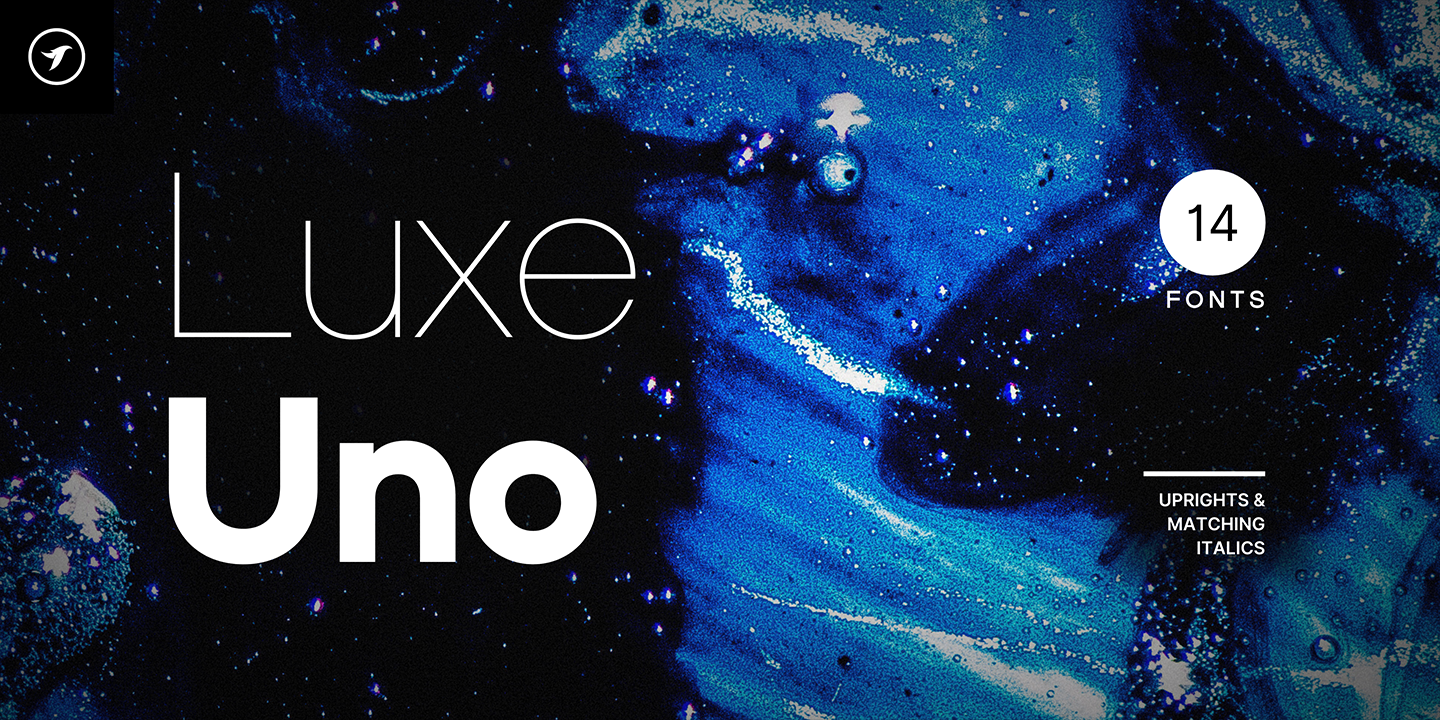
The Luxe Uno Font is exceptionally designed for numerous high-end applications including luxury brand logos, premium fashion campaigns, exclusive jewelry advertisements, upscale hospitality branding, high-end real estate marketing, luxury automotive promotions, elite spa communications, exclusive club signage, premium wine labels, and sophisticated lifestyle magazine layouts. Its distinguished character makes it particularly effective for luxury brands, premium service providers, exclusive retailers, and elite lifestyle companies seeking to convey ultimate sophistication, exclusivity, and uncompromising quality in their visual communications and brand presentations.
What makes the Luxe Uno Font incredibly exciting is its perfect embodiment of luxury design principles combined with contemporary typographic excellence. This distinguished typeface captures the essence of premium craftsmanship and exclusive sophistication while incorporating modern design elements that ensure optimal performance across today's luxury market landscape. The font's captivating character emerges from its refined letterforms, elegant proportions, and meticulously crafted details that evoke a sense of ultimate luxury and prestigious exclusivity, making it perfect for brands seeking to establish dominance in the high-end market and appeal to affluent, discerning clientele.
The Luxe Uno Font family offers a comprehensive collection of weights and styles designed to provide complete luxury branding solutions. The collection typically includes thin, light, regular, medium, bold, and black weights, with many versions featuring sophisticated italic variants that enhance the font's premium appeal and exclusive character. Some editions may include decorative alternates, luxury ligatures, and ornamental elements that provide additional design options for creating unique typographic treatments and ultra-premium brand applications.
Luxury brand designers and premium marketing professionals consistently select the Luxe Uno Font Free Download for its exceptional elegance and exclusive appeal. The font features meticulously crafted spacing and kerning that ensures perfect harmony and optimal readability across various luxury applications, from delicate product tags to grand retail displays. Its refined construction maintains sophistication and prestige in both intimate and large-scale uses, while the comprehensive character set includes uppercase and lowercase letters, numerals, punctuation marks, and special symbols, along with extensive language support for international luxury brands and global premium communications.
The Luxe Uno Font represents the pinnacle of luxury typography, combining exclusive design heritage with contemporary functionality. Its prestigious aesthetic commands attention while maintaining the sophistication required for ultra-premium brand applications. The font's remarkable adaptability allows it to work effectively in both minimalist luxury contexts and elaborate high-end presentations, ensuring consistent prestige across luxury websites, premium packaging, exclusive advertising, and elite brand communications.
Achieve ultimate luxury and exclusive sophistication with the prestigious elegance and premium quality of the Luxe Uno Font, the ultimate choice for luxury typography excellence.